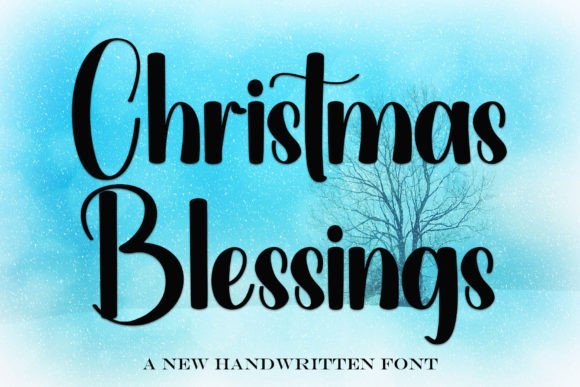
Spread Holiday Cheer with the Perfect Font
It’s the most wonderful time of the year, and you’re busy planning a holiday campaign that will leave your audience in awe. As you pour over design ideas and brainstorm creative concepts, you stumble upon the perfect opportunity to make your project truly special – the right font. It’s in these moments that the Christmas Blessings Font comes to life, elevating your design from ordinary to extraordinary.
This stylish handwritten font boasts a contemporary atmosphere and impeccable form, inspired by the timeless classic calligraphy of the past. With its balanced and varied design, Christmas Blessings Font is the perfect choice for designers looking to add a touch of elegance to their projects. Whether you’re working on a holiday card, brochure, or website, this font is sure to bring your design to life.
Christmas Blessings Font Key Features
• Font Size: 1,000 glyphs, including letters, symbols, and ornaments
• Unique Characteristics: Includes a range of festive and seasonal symbols, such as snowflakes, holly, and Christmas trees
• Font Style: A combination of serif and script fonts, with a warm and inviting feel
Designer Review: Christmas Blessings Font
I recently had the chance to work with the Christmas Blessings Font, and I must say it’s a delightful addition to any holiday project. ✨ The font’s whimsical feel and festive flair make it perfect for capturing the magic of the season. The intricate details and ornaments add a charming touch, making it suitable for both digital and print applications.
Here are some of the font’s strengths:
• ✨ Highly customizable, allowing for a range of styles and effects
• ✨ Beautifully rendered ornaments and details that add a unique touch
However, I did encounter a few limitations:
• ⚠️ Limited character set, which may be a concern for longer texts
• ⚠️ Some glyphs may not render correctly at smaller font sizes
• ⚠️ Not ideal for body text, as it can be quite ornate and overwhelming
Overall, I’m impressed with the Christmas Blessings Font. It’s perfect for adding a touch of holiday magic to your designs, but it’s not a substitute for a solid body text font. With some careful planning and selection, this font can be a wonderful addition to your holiday project.
The Christmas Blessings font is ideal for:
– Creating festive holiday cards and invitations.
– Designing Christmas-themed social media graphics.
– Adding a touch of holiday cheer to your website or blog.
– Printing custom Christmas gift tags and labels.